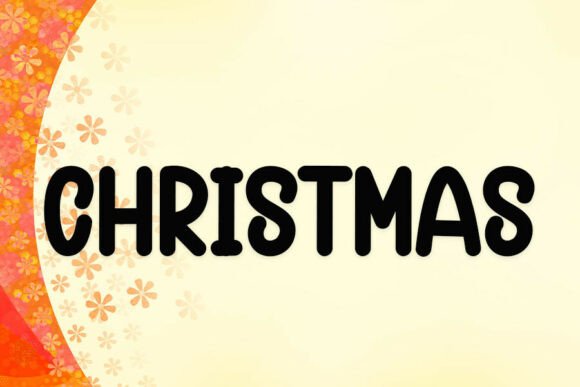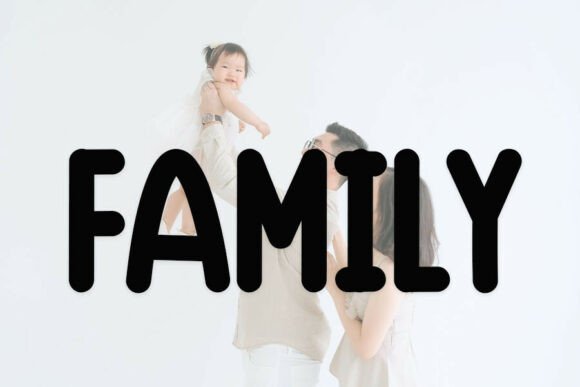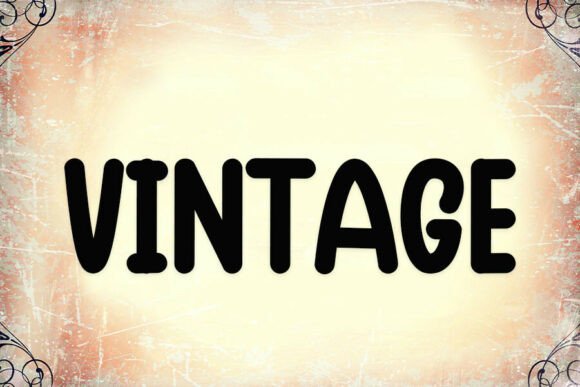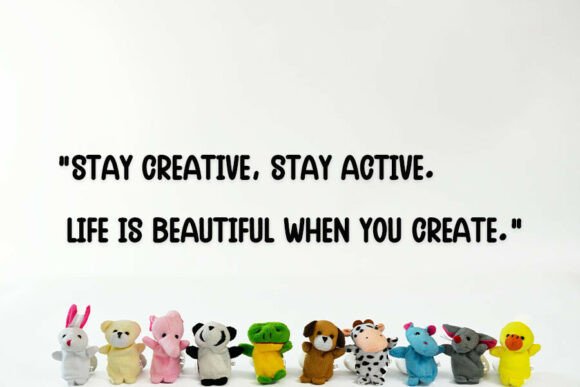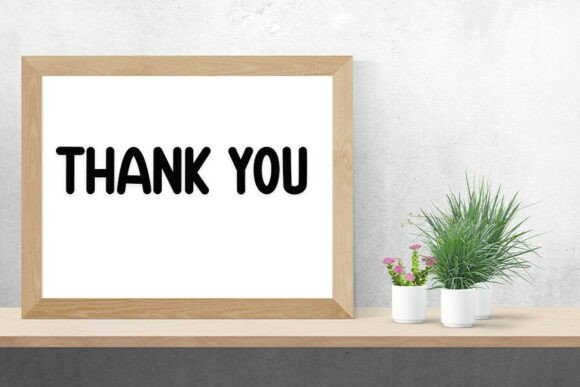
Introducing Brother Font: A Festive and Merry Typeface for the Holiday Season
The holiday season is upon us, and what better way to get into the spirit than with a font that’s as festive and merry as Brother Font? This decorative typeface is designed to capture the magic and enchantment of Christmas, making it perfect for greeting cards, gift tags, and holiday-themed projects. With its whimsical flair and nostalgic ambiance, Brother Font is sure to bring a touch of cheer to your designs.
A Font that’s Full of Holiday Cheer
Brother Font is a carefully crafted typeface that’s bursting with holiday cheer. Its decorative elements and whimsical design make it perfect for adding a touch of festivity to your designs. Whether you’re creating greeting cards, gift tags, or holiday-themed projects, this font is sure to bring a smile to the faces of those who see it.
Brother Font is a versatile typeface that’s perfect for designers and crafters alike. Its PUA encoding makes it easy to access all of the amazing glyphs and ligatures, allowing you to create beautiful and unique designs with ease. Whether you’re a professional designer or a crafter looking to add a personal touch to your projects, Brother Font is the perfect choice.
Key Features of Brother Font
- PUA Encoding: Brother Font is PUA encoded, making it easy to access all of the amazing glyphs and ligatures.
- Decorative Elements: The font features decorative elements and whimsical design, perfect for adding a touch of festivity to your designs.
- Holiday-themed: Brother Font is specifically designed for the holiday season, making it perfect for Christmas, Hanukkah, and other winter holidays.
- Versatile: The font is versatile and can be used for a variety of projects, including greeting cards, gift tags, and holiday-themed projects.
Tips for Using Brother Font
Here are a few tips for using Brother Font in your designs:
- Pair it with Other Fonts: Brother Font pairs well with other festive fonts, such as script fonts or bold sans-serif fonts.
- Use it for Headings: The font is perfect for headings and titles, adding a touch of festivity to your designs.
- Experiment with Colors: Brother Font looks great in a variety of colors, from traditional holiday colors like red and green to more modern colors like metallic silver and gold.
Why Choose Brother Font?
There are many fonts to choose from, but Brother Font stands out for its unique and festive design. Here are a few reasons why you should choose Brother Font for your holiday designs:
- Unique Design: Brother Font has a unique and festive design that’s sure to stand out in your designs.
- Easy to Use: The font is easy to use and PUA encoded, making it easy to access all of the amazing glyphs and ligatures.
- Versatile: Brother Font is versatile and can be used for a variety of projects, making it a great addition to your font library.